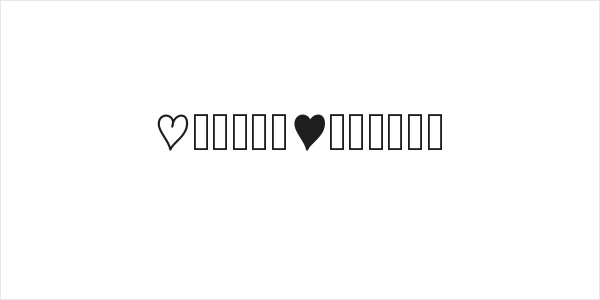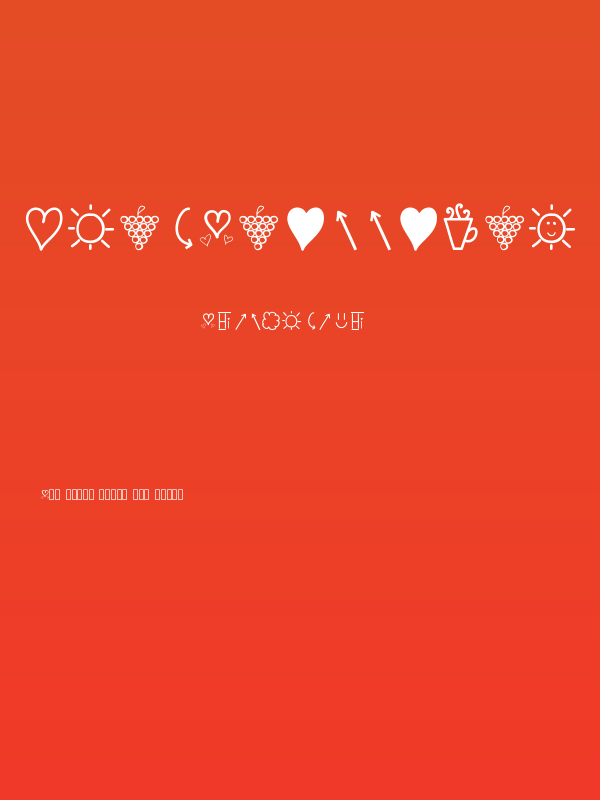
CreateDoodles Font
CreateDoodles Description
This collection of doodles features a playful and whimsical style, incorporating a variety of symbols and icons. The designs include hearts, arrows, smiley faces, and other charming elements that convey a sense of fun and creativity. The strokes are bold and clear, making each symbol easily recognizable. The overall aesthetic is casual and hand-drawn, perfect for adding a personal touch to projects. These doodles can be used to enhance visual interest and convey emotions or messages in a lighthearted manner.
| Overall Style | Whimsical and playful |
| Use Case | Decorative elements, embellishments, and creative projects. |
| Proposed Projects | Ideal for scrapbooking, greeting cards, social media graphics, and children's book illustrations. |